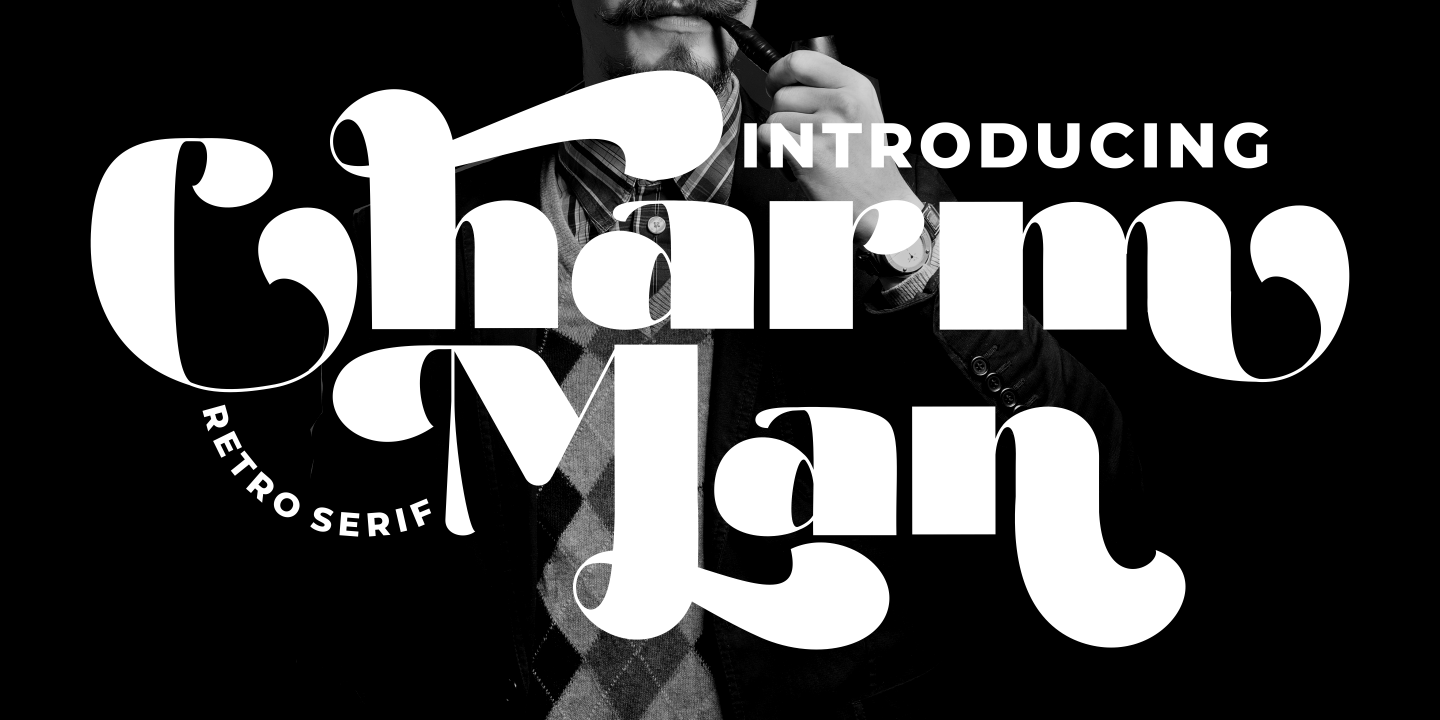
This bold and stylish typeface is perfect for men's fashion branding, lifestyle magazines, logos, posters, and social media graphics. It delivers a confident and modern vibe, making your designs instantly stand out with a masculine edge.
What makes Charm Man Font so exciting is its strong lines, clean shapes, and balanced proportions that evoke both elegance and power. It’s designed to be versatile, suitable for headlines, branding, and decorative purposes.
The Charm Man Font family includes several weights such as Regular, Bold, and Italic. It also supports uppercase, lowercase, numerals, punctuation, and multilingual characters, ensuring broad usability across different projects.